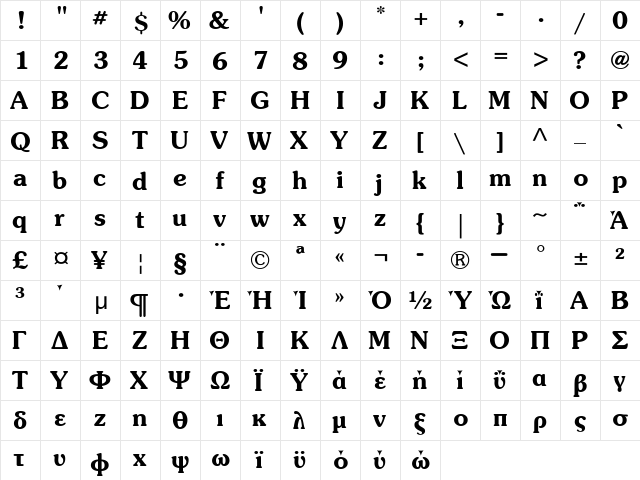
SouvenirGreek Light Bold Font Preview
SouvenirGreek Light Bold
Design Context for SouvenirGreek Light Typeface
SouvenirGreek Light takes a measured approach to typography — its balanced proportions and neutral character make it a reliable workhorse for both digital and print work. Its bold stroke weight gives it real presence on the page.